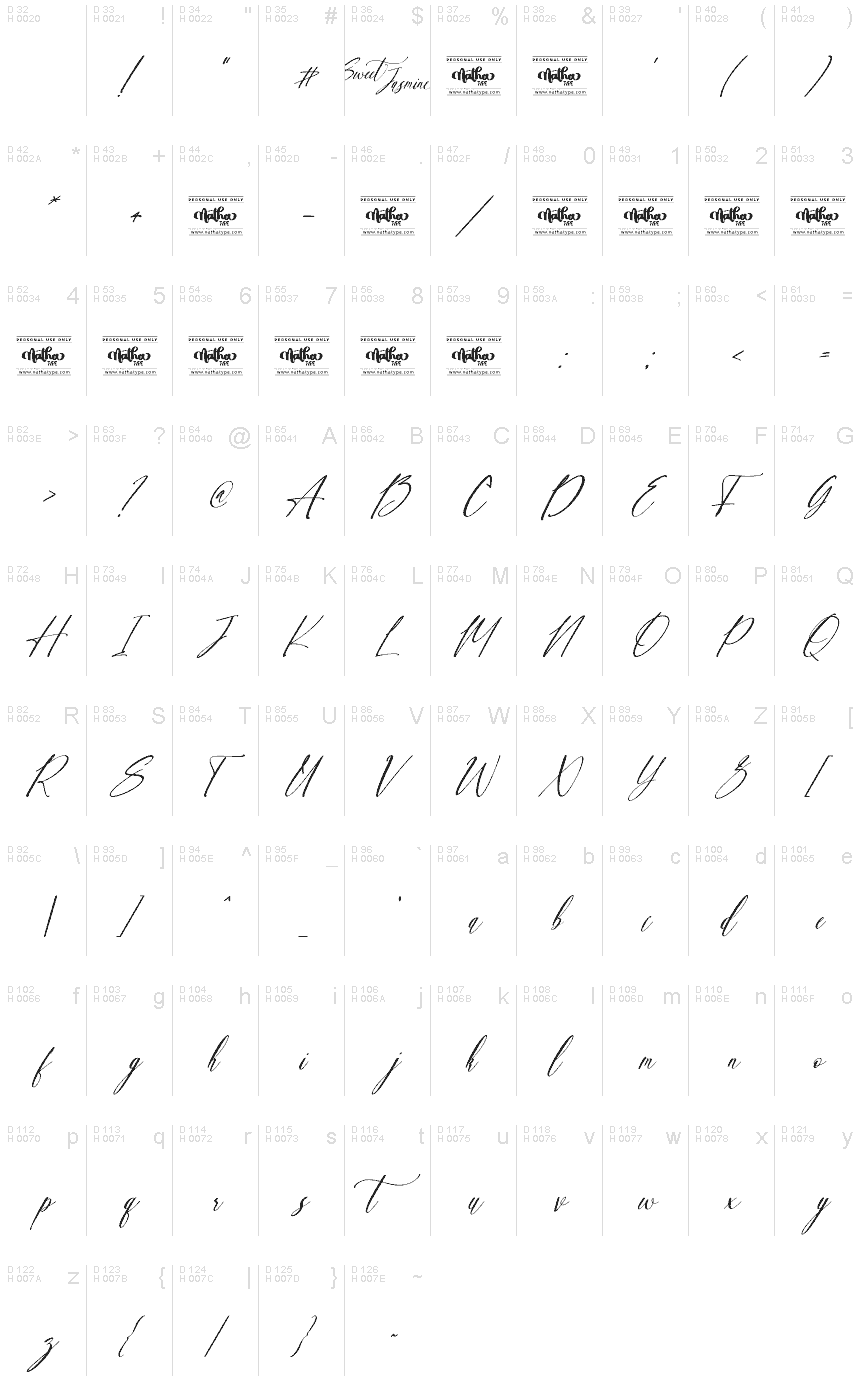
Sweet Jasmine Personal Use
Sweet Jasmine font, a creation by Nathatype, is a free handwritten font designed with a condensed width and light weight. The elegant lines and graceful movements of letters bring sophistication to text meant to impress. Experience and embrace the signature style approach within Sweet Jasmine where art, passion, and precision meet.
Communicate modern elegance in logo designs or marketing materials like brochures and flyers. A new definition of stylish branding will await you by using Sweet Jasmine in packaging design, heading text for blogs or newspapers, posters, invites related to weddings or proposals… Gorgeous edits for social media photos are also great additions to your options!